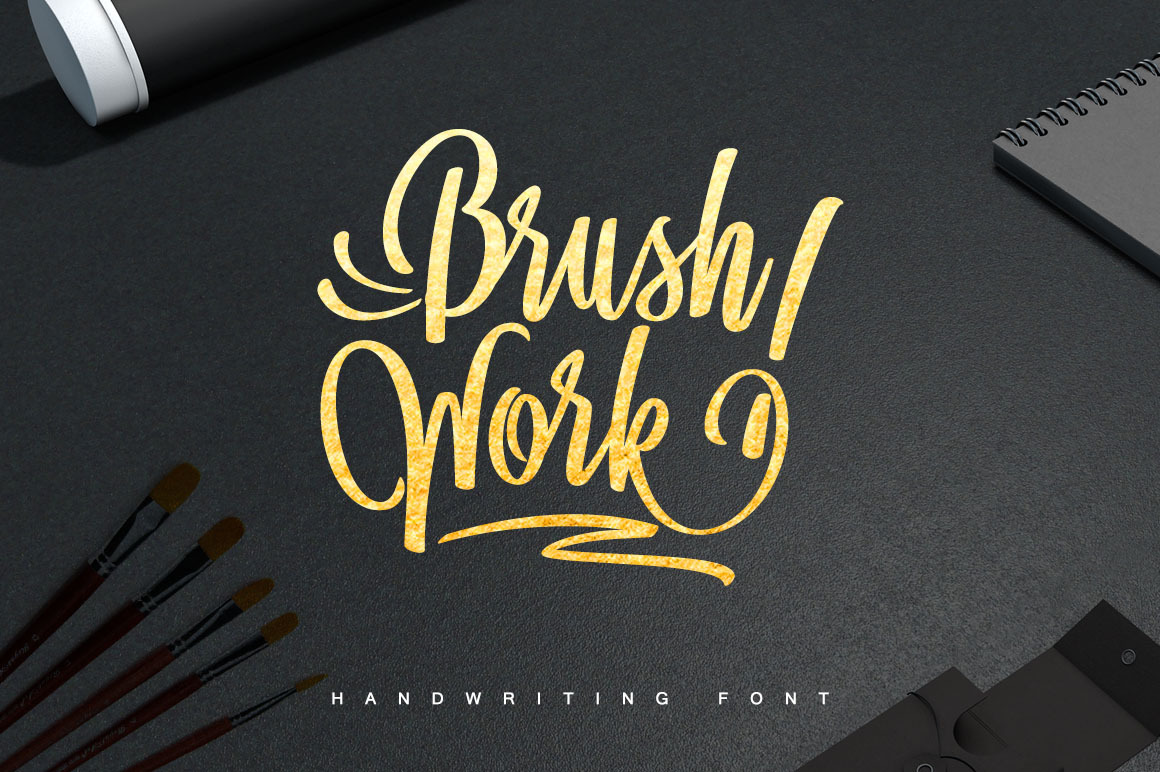
BrushWork TypeFace
BrushWork is a lively and Lovely Handwriting font, Some lowercase letters are alternately set and some popular words are free of confusing fonts,and doodles to bring your type designs.